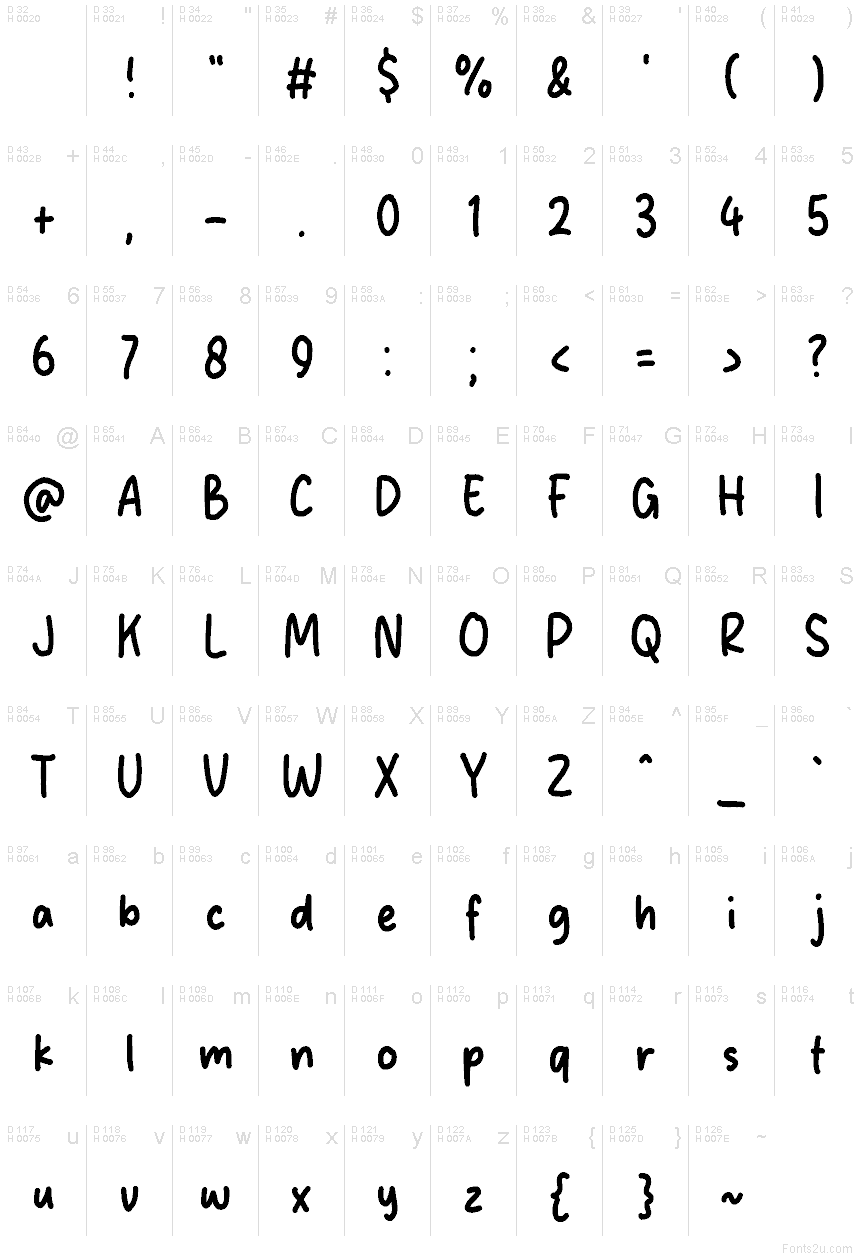
Mika Handwrite
Mika Handwrite font by MJType is a free handwritten font that captures the warmth of a marker pen without sacrificing clarity. Its rounded strokes, even rhythm, and just‑slightly irregular shapes give the feeling of a real note scribbled by a friendly human, but every letter stays clean and easy to read at a glance. The weight is bold enough to stand out, yet soft around the edges, so your layouts feel approachable instead of shouty.
Using Mika Handwrite, you can add personality to planners, social posts, kids’ projects, packaging, stickers, or casual branding without drifting into messy or childish territory. This free font shines in short phrases, quotes, and headings; pair it with a simple sans serif for body text to keep things balanced. Try it at larger sizes for titles and labels where you want instant, handwritten charm that still reads smoothly on screen.